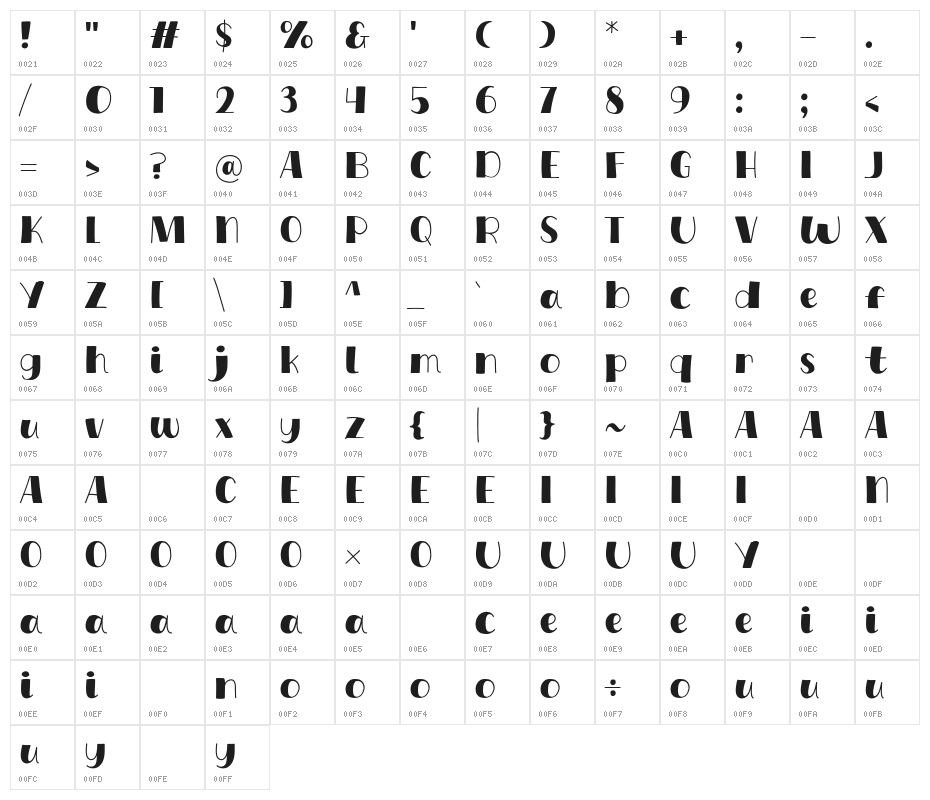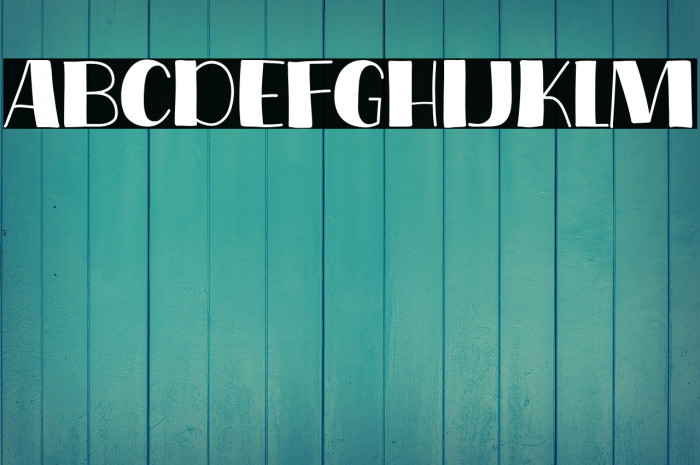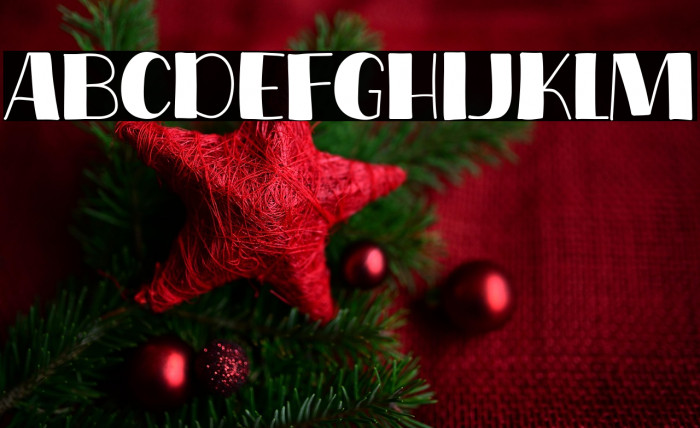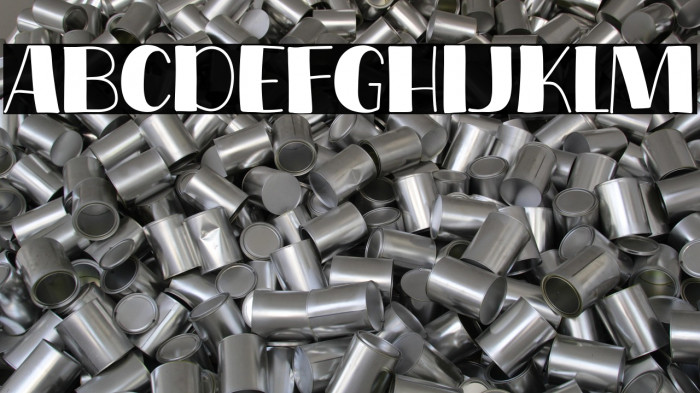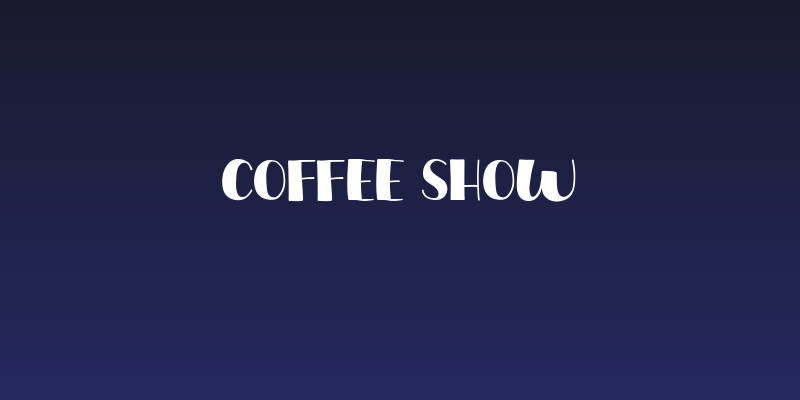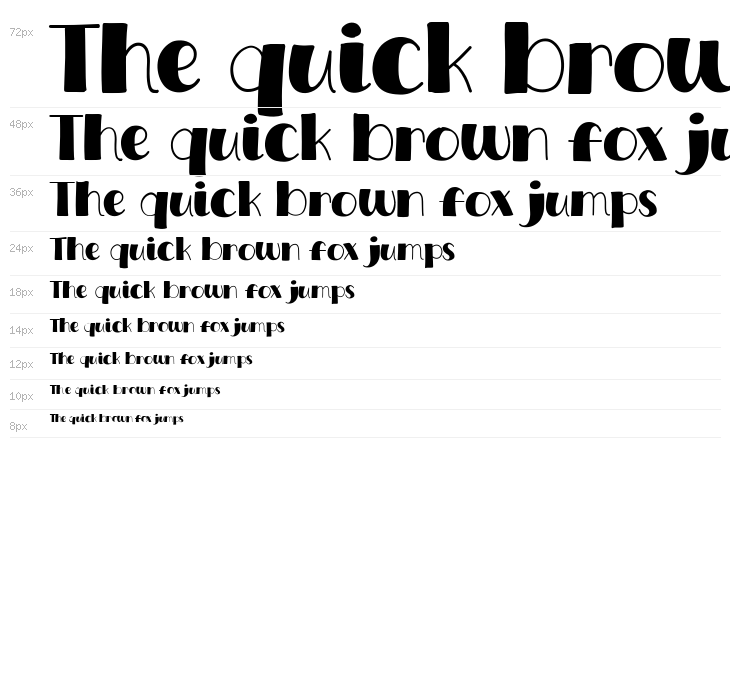
Coffee Show Font
Coffee Show Description
This font features a playful and bold design with a unique blend of thick and thin strokes, creating a dynamic and eye-catching appearance. The uppercase letters are characterized by their boldness and slight slant, giving them a sense of movement and energy. The lowercase letters maintain a whimsical style, with some characters having exaggerated curves and loops. The numerals are equally bold and maintain the playful aesthetic of the alphabet. Special characters are creatively designed, adding to the overall fun and lively feel of the font. This font is ideal for projects that require a touch of creativity and flair.
Overall StylePlayful, Creative
Proposed ProjectsPerfect for children's books, playful branding, posters, and creative invitations.